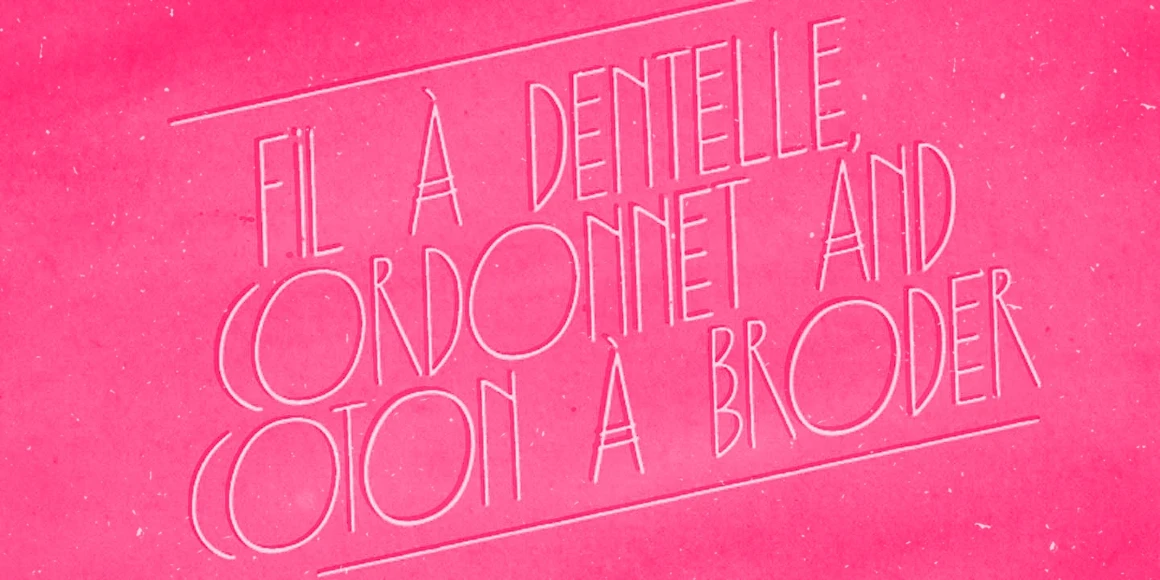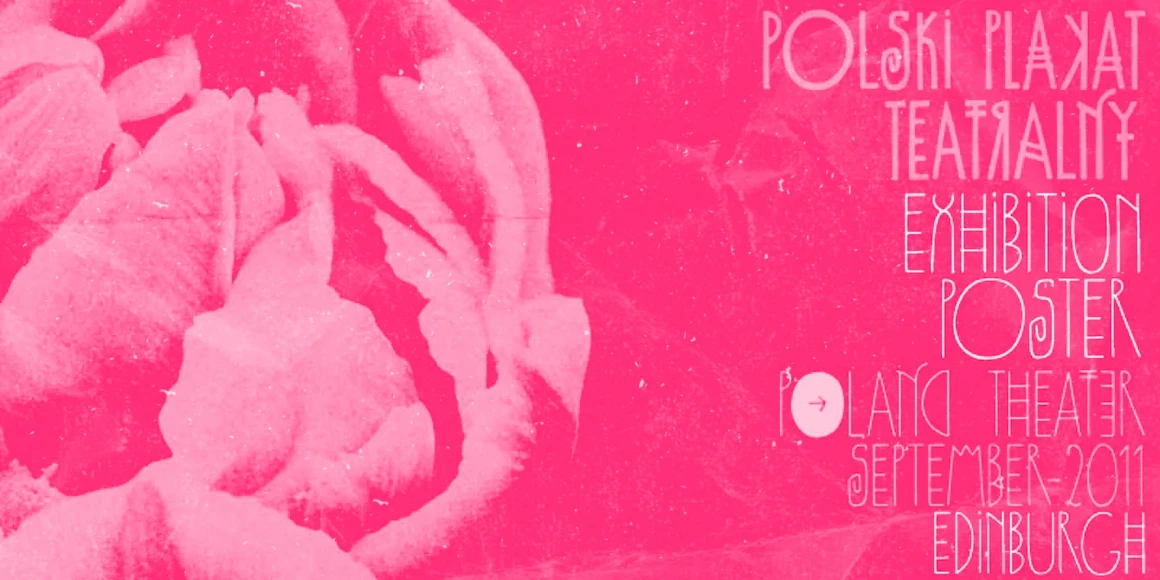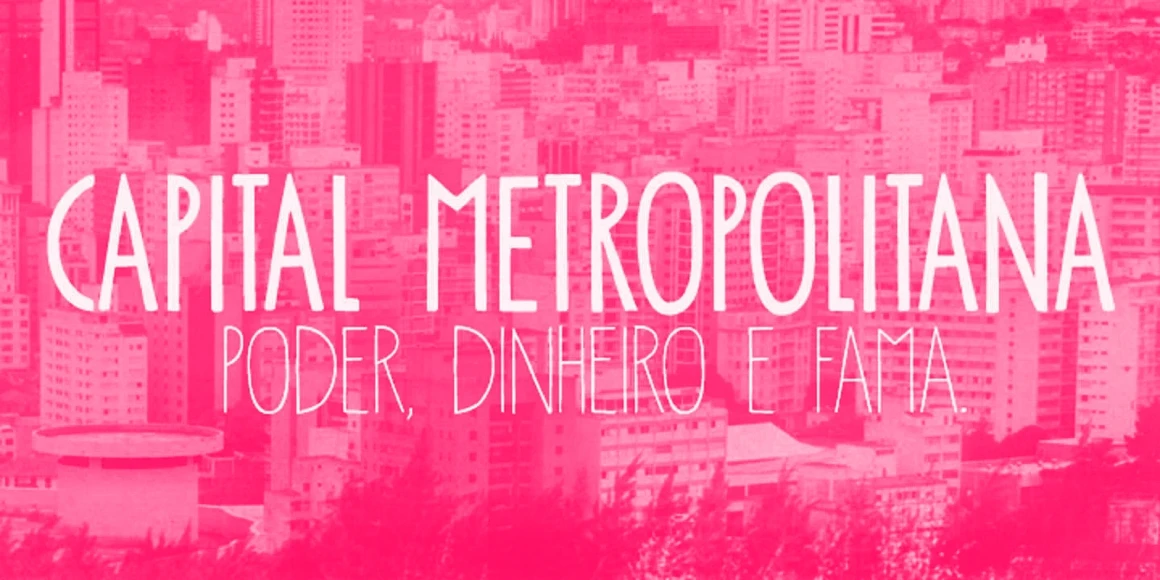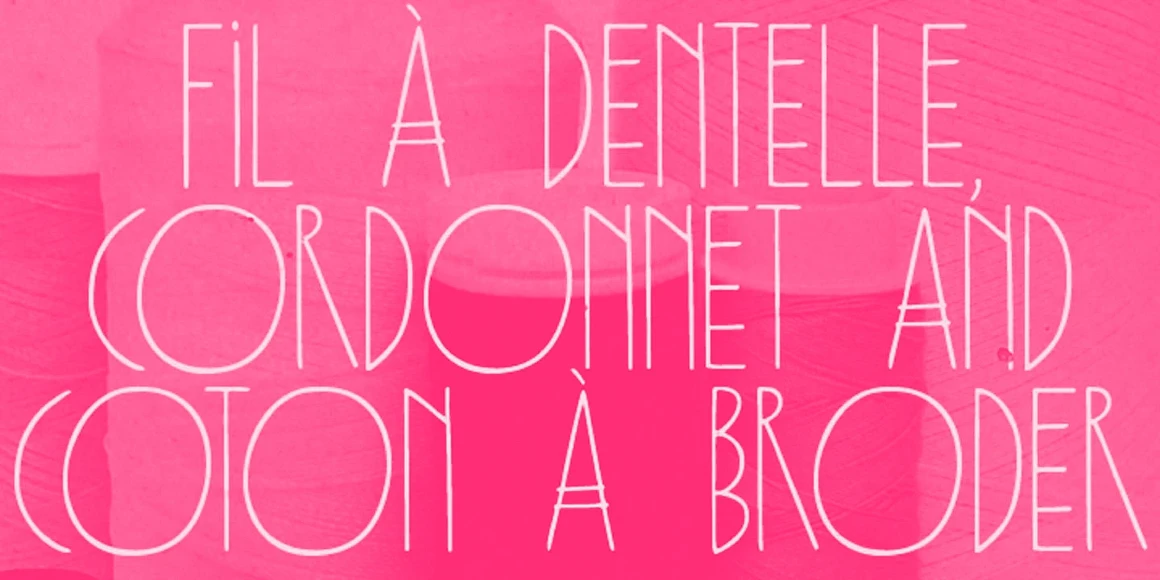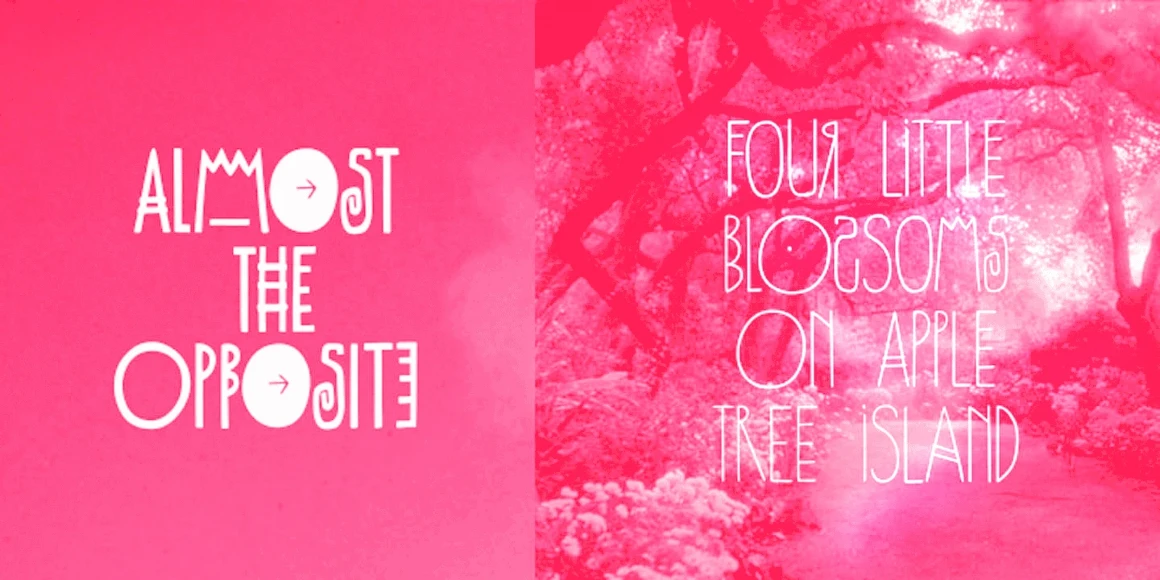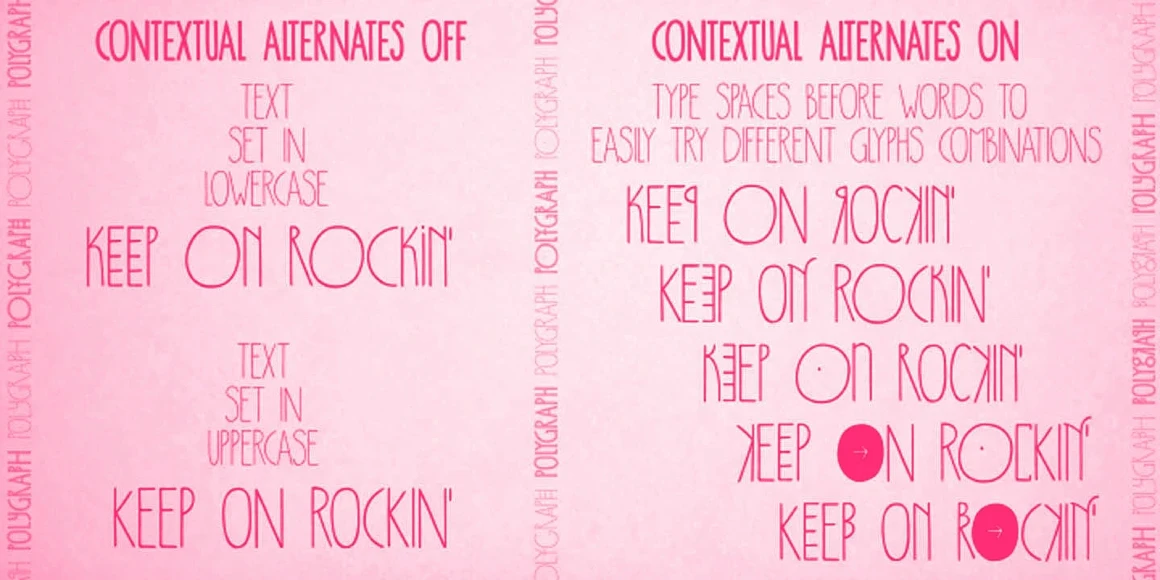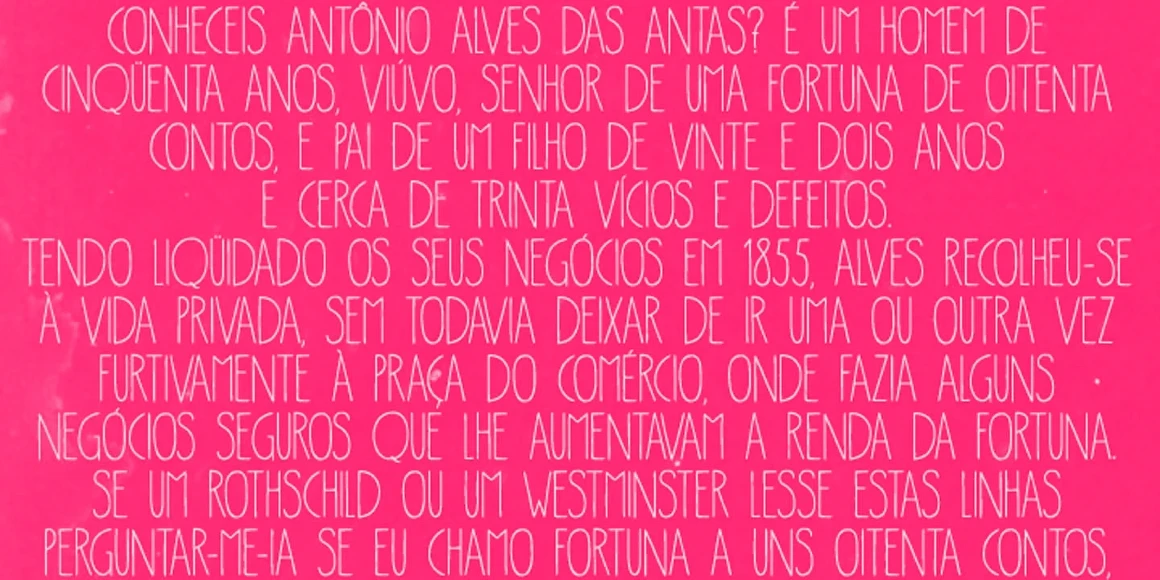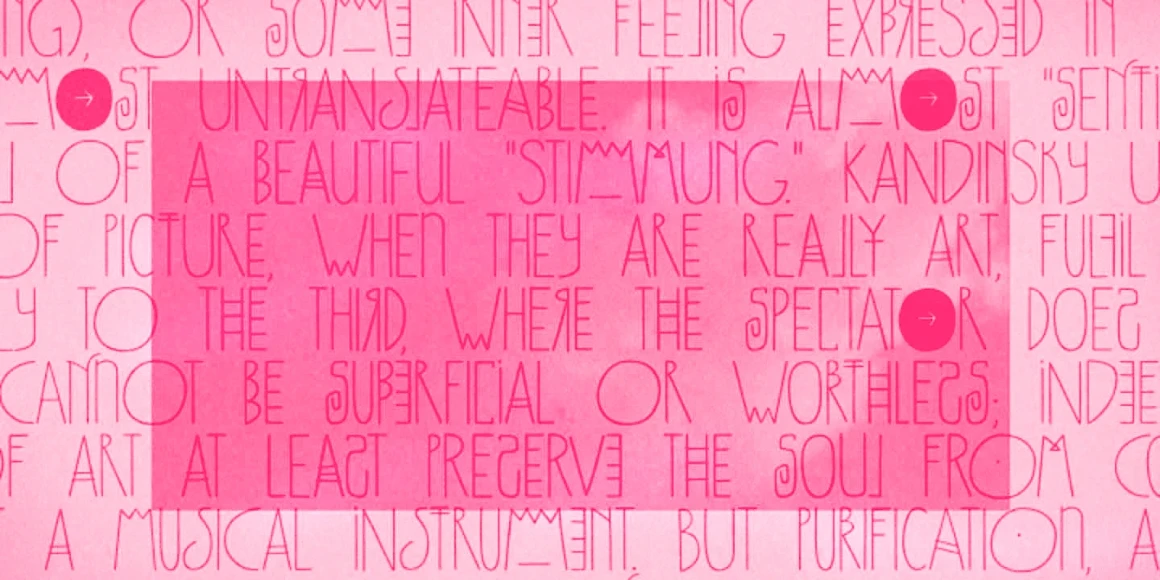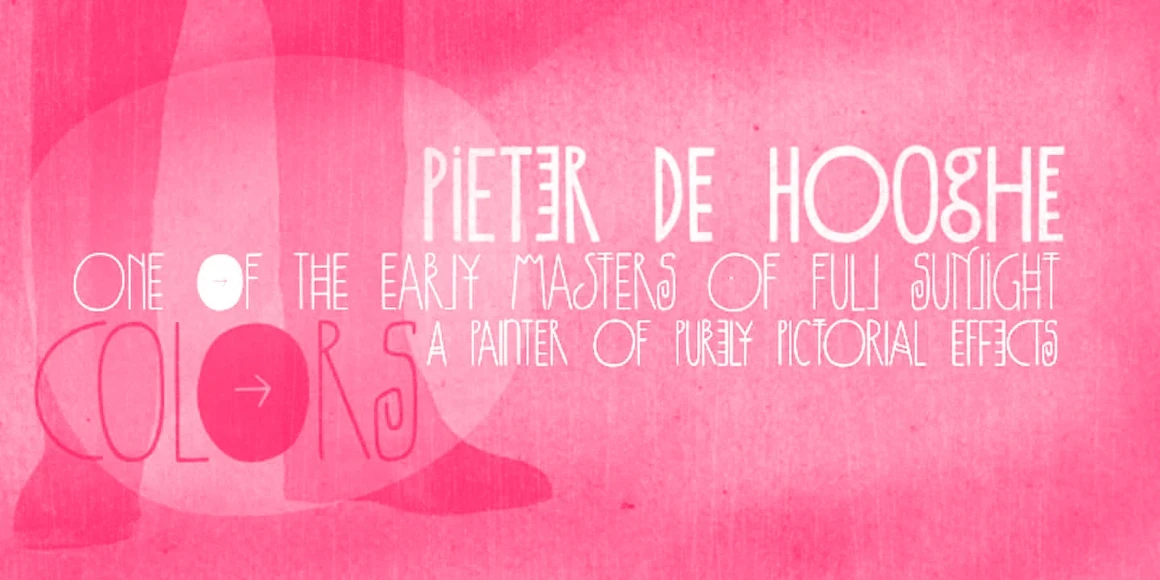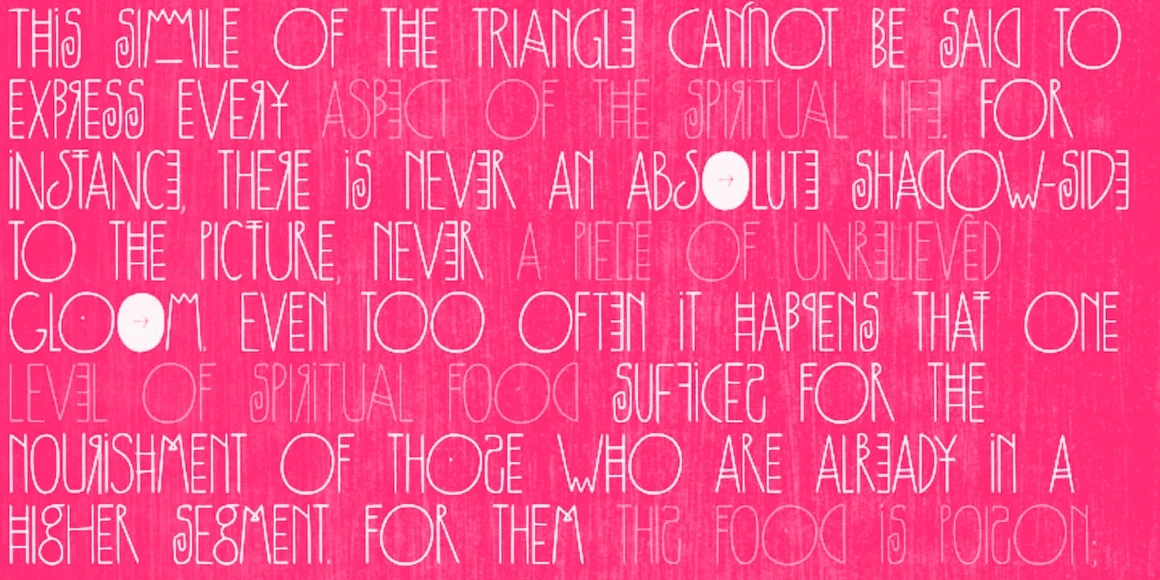
Polygraph
Polygraph Medium
Polygraph Bold
Polygraph is an all-caps family inspired by the posters from the extraordinary Polish artist Leszek Żebrowski. It is a highly unusual family packed with eccentric alternates with four exchangeable variations for each letter for added randomness. Using this family will result in your ideas being audaciously outstanding! Polygraph comes in two weights for added flexibility. There are also a stylish set of ornaments. All hand-made, with care. But be warned: it’s quite addictive!